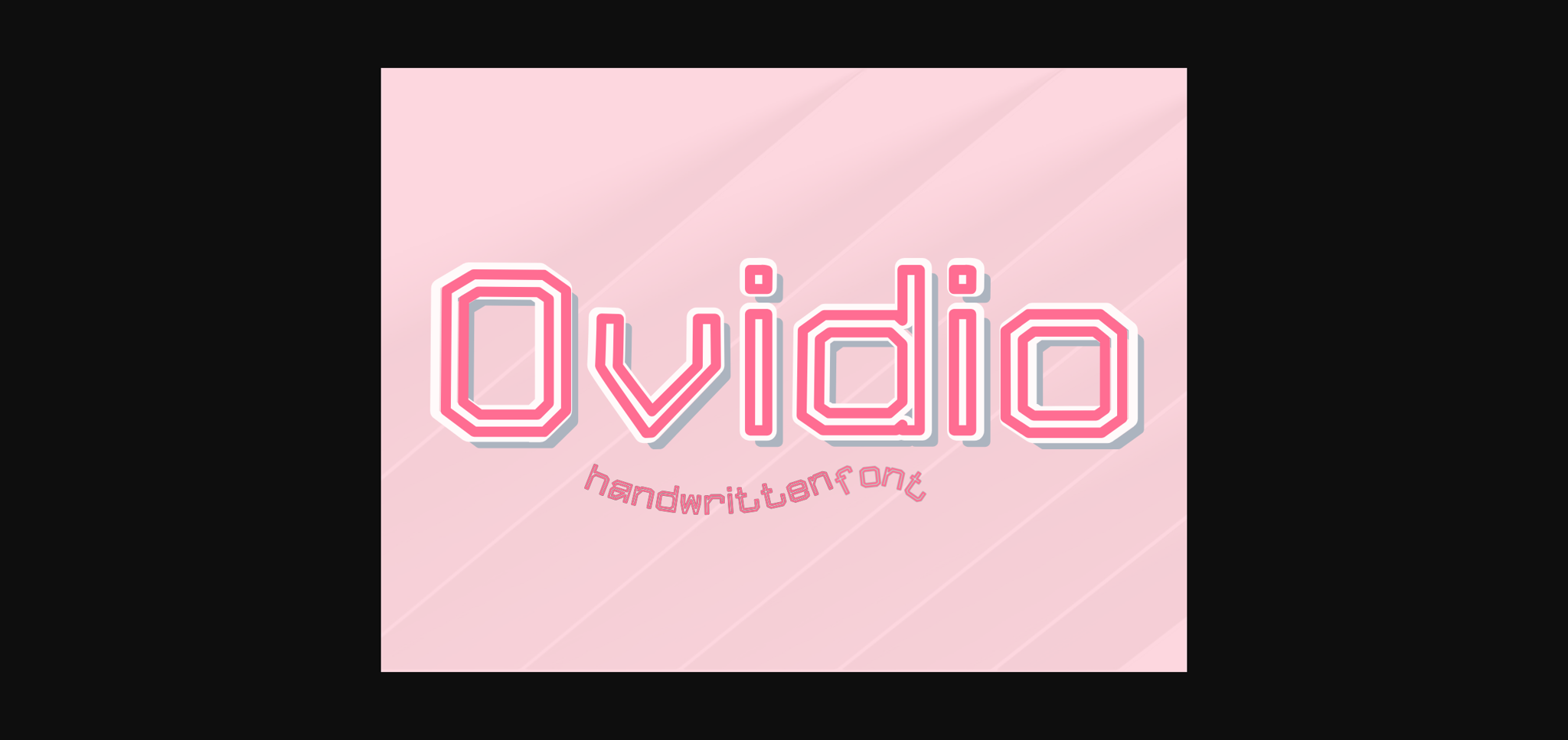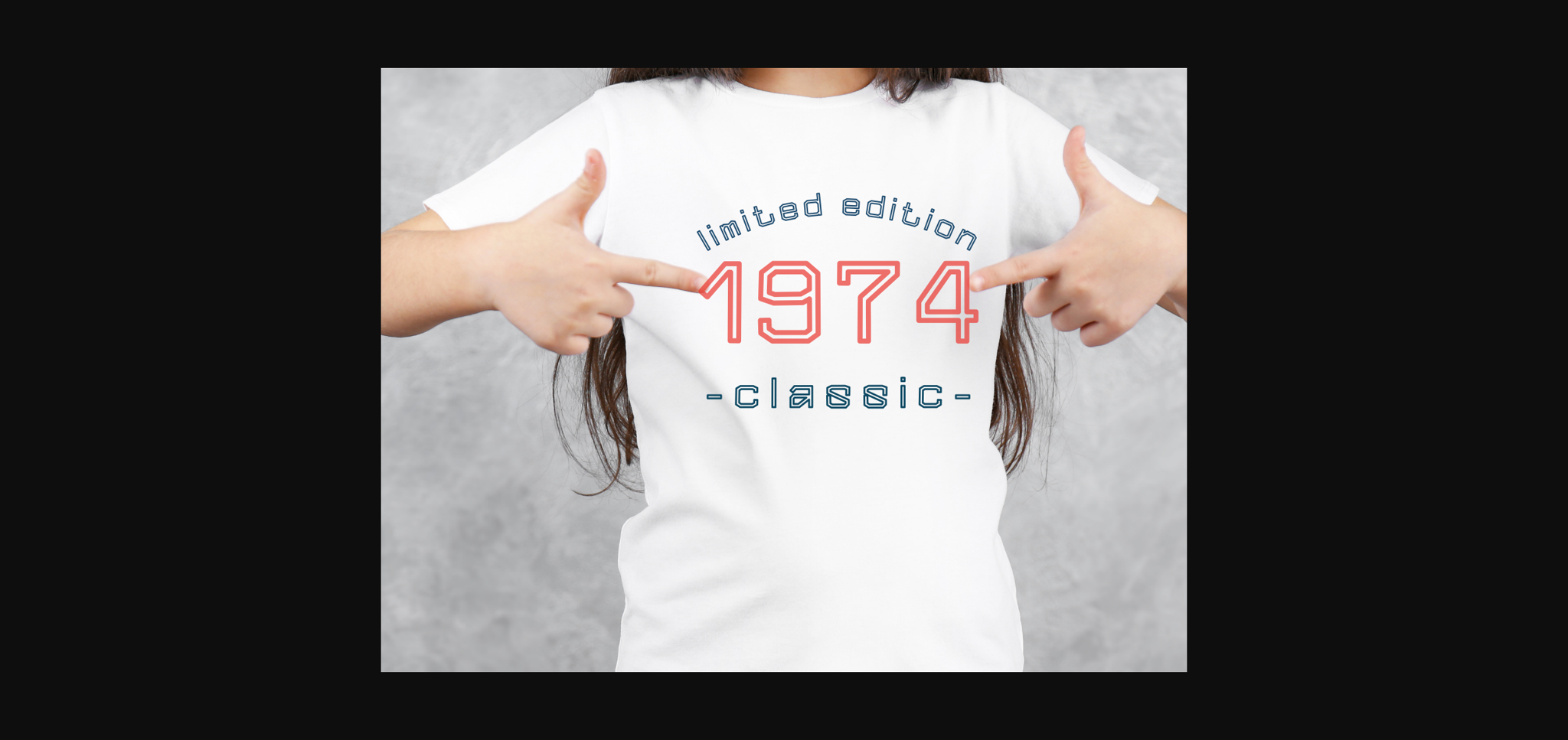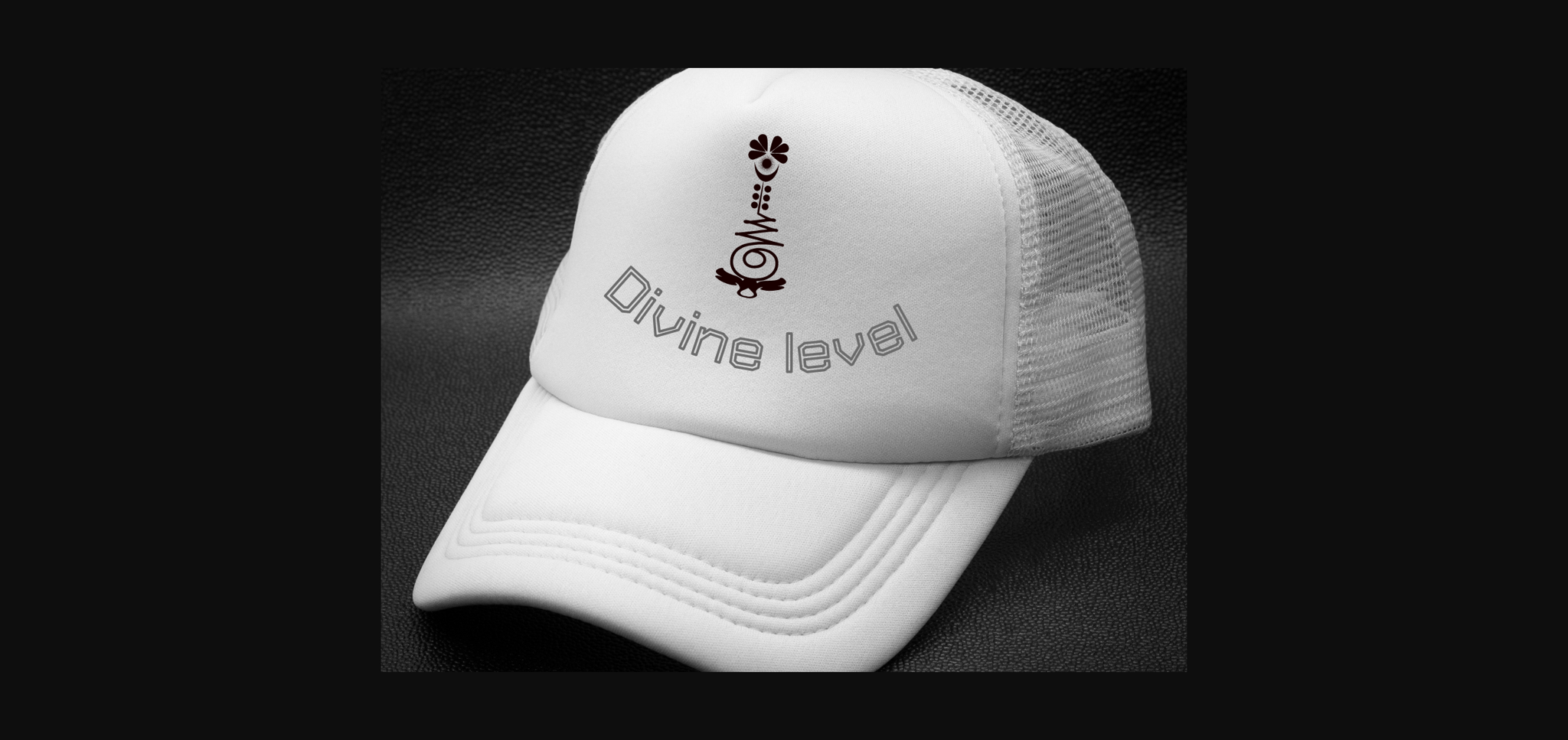
About Ovidio Font
Ovidio is a modern and clean sans-serif font designed for clarity and simplicity. With a sleek and minimalistic style, it offers a timeless aesthetic that is versatile for various design applications. Ovidio’s balanced proportions and refined letterforms make it an excellent choice for both digital and print projects, providing a polished and contemporary look to your typography.